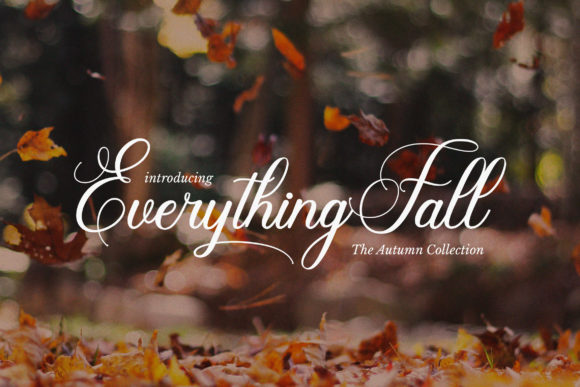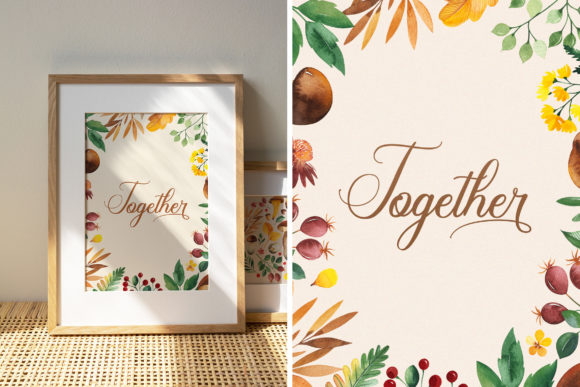
Charlbury Script Font
db-ku.com - Script & Handwritten -- Charlbury Script is an elegant script font with a contemporary atmosphere and impeccable form. Not too thin and not too thick, balanced and varied, this font was designed to enhance the beauty of your projects.